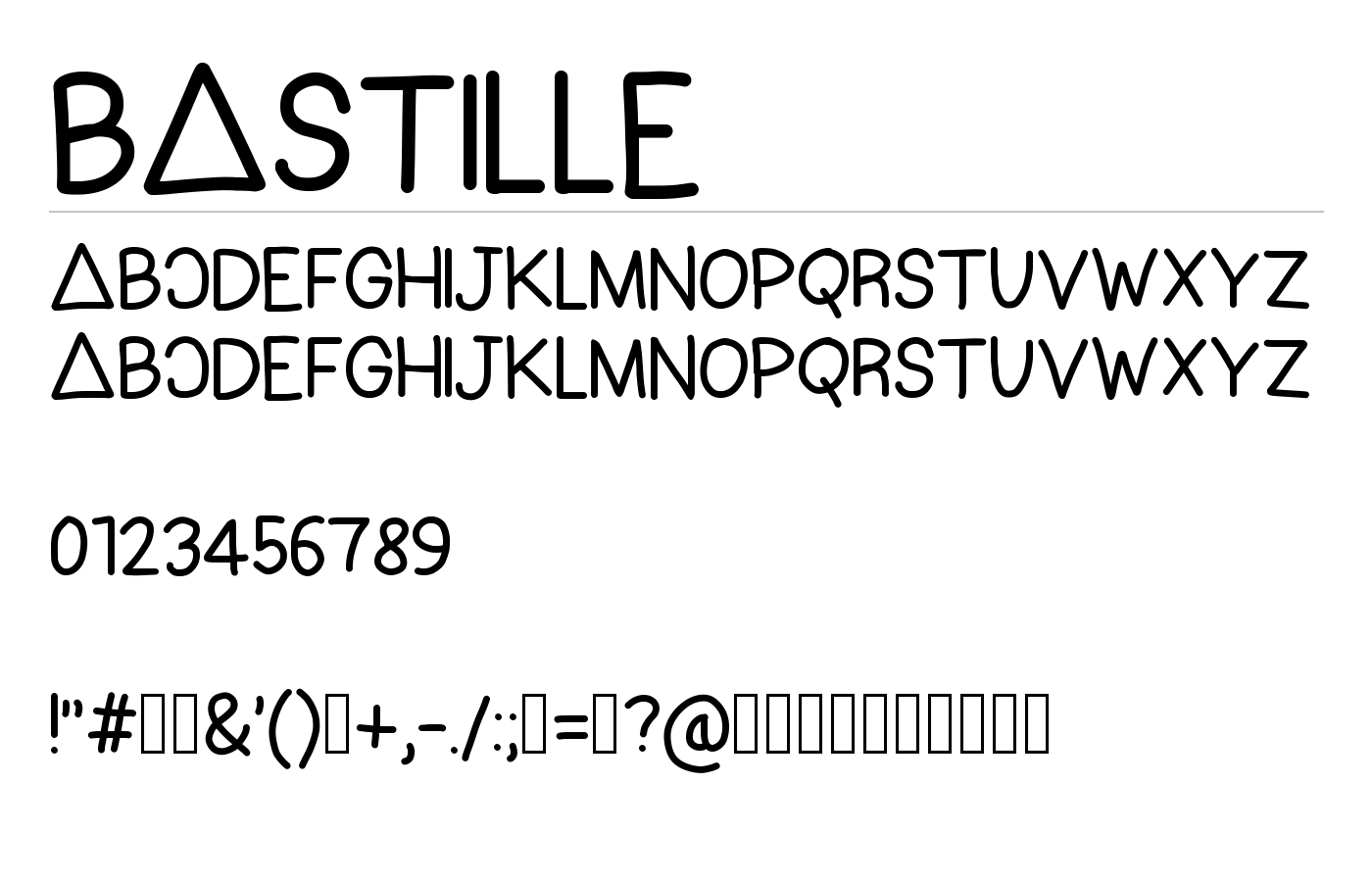
BASTILLE is a playful, casual sans serif font featuring rounded, hand-drawn letterforms with consistent stroke weight and a medium x-height, giving it a friendly and approachable feel. Its unique, quirky shapes—such as the triangular 'A' and double-storey 'B'—add personality, making it ideal for creative, informal designs like logos, posters, and children’s content. This font works best where a relaxed and modern vibe is desired, offering clear readability while expressing fun and originality.
BASTILLE Font